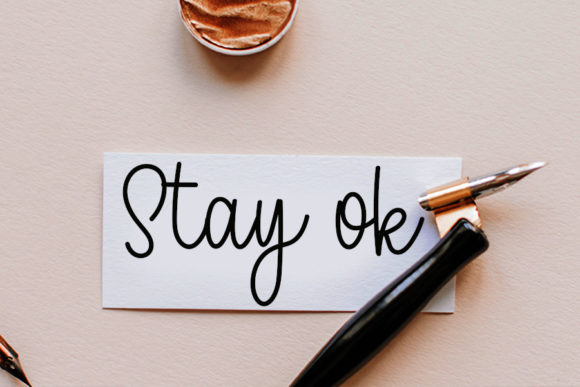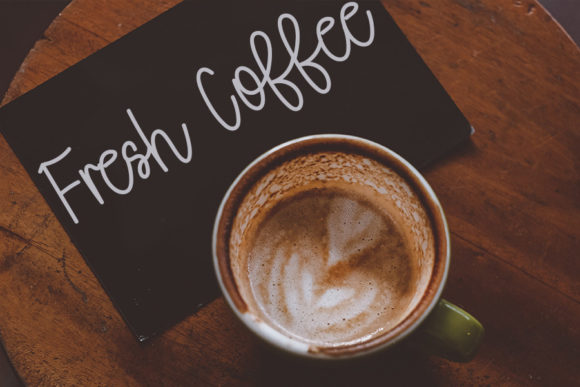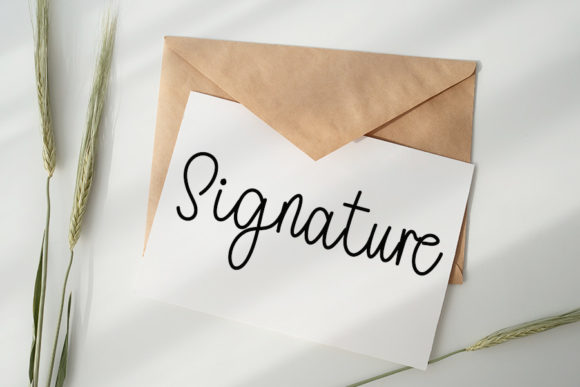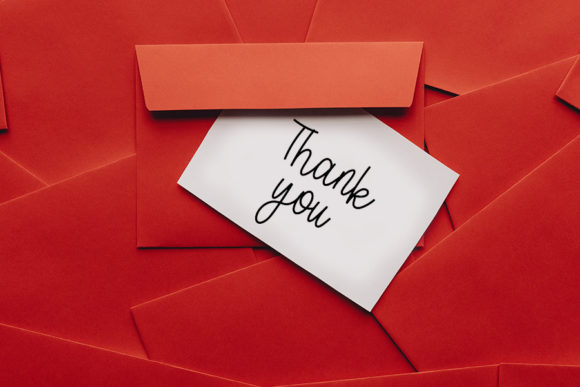
Milkshake Font
About Milkshake Font
Milkshake is a lovely script font featuring charming, playful characters that seem to dance along the baseline. Add this font to your most creative ideas, and notice how it makes them stand out!